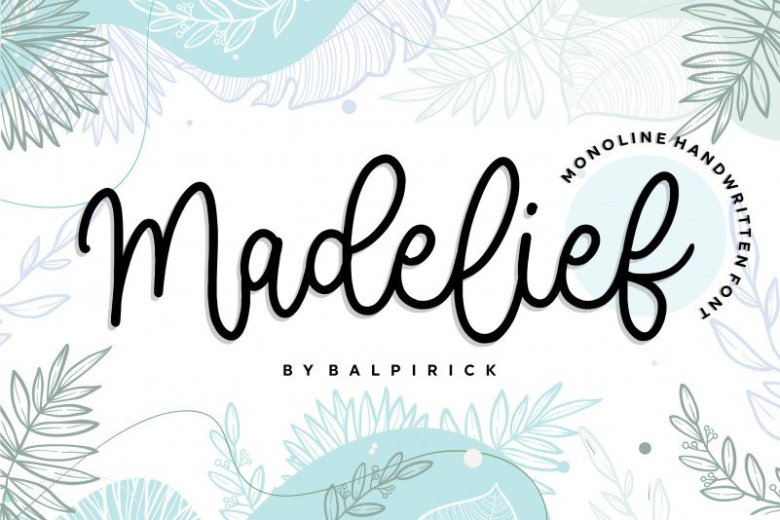
Madelief Monoline Handwritten Font
Madelief Font is a casual monoline script with a bouncy baseline and great curves.
Madelief is perfect for crafting, photography, watermark, social media posts, advertisements, logos & branding, invitation, product designs, label, stationery, product packaging, special events etc.